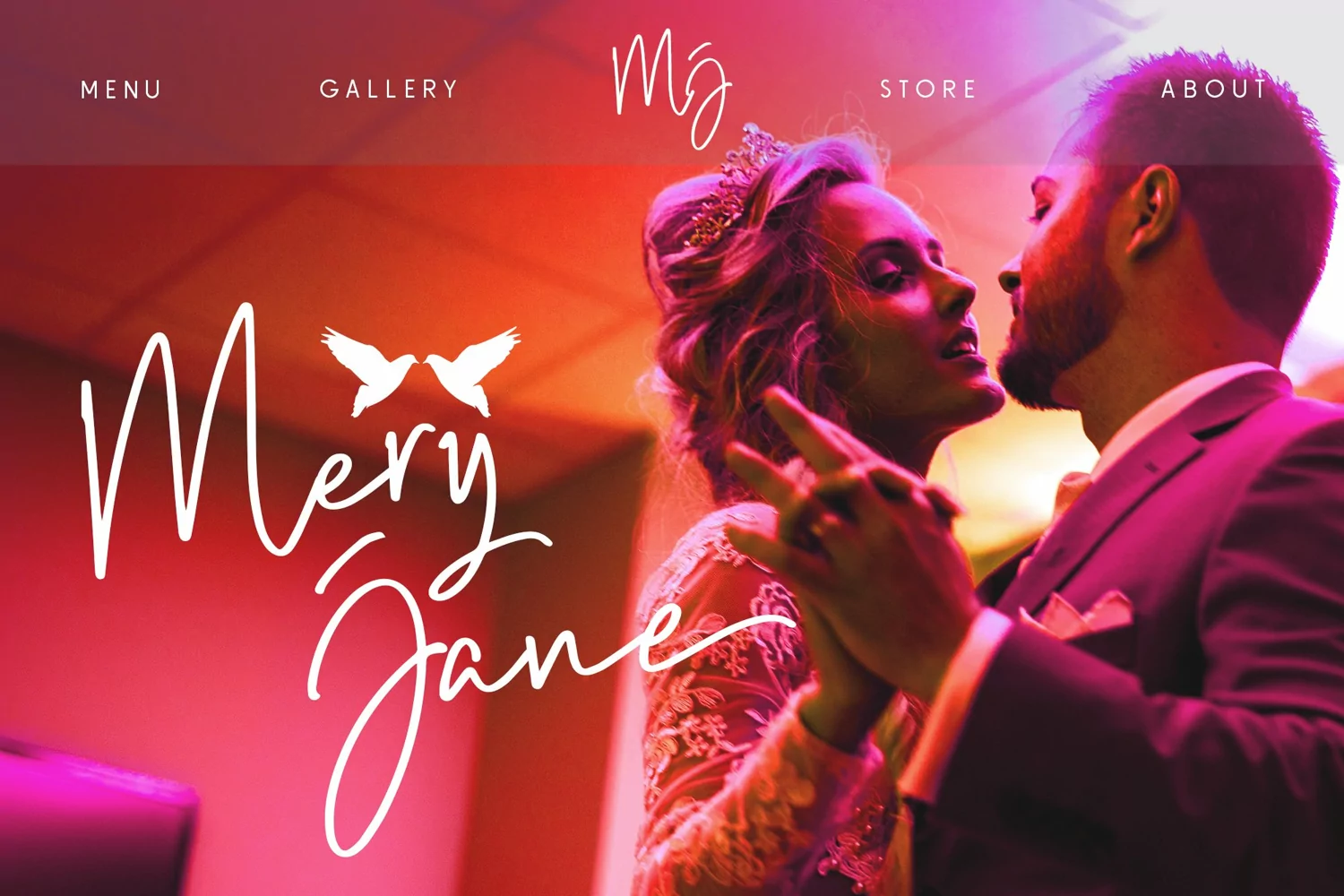
Brush Wayne Signature and Sans
Hi guys, Runsell Studio present a new script font collection. Brush Wayne . . . Yes, Brush Wayne ! This is handwriting font so natural, feminine, and elegant. Wayne brush font can be applied in many design you needs like the logotype, branding, packing, ui design, website header, blogger, signatures, wedding invitation, and more.
Brush Wayne is the font duo pair with sans font, you can combinations two fonts set so there is color in the designs that you create. For an extra bonus, we added 50+ illustrations dingbat as supporting components, to complement the existing free space in your artboard.
Brush Wayne comes with dingbat numerals, uppercase, lowercase, punctuation and numbers. Includes a range of multilingual support. Please message me if you're unsure of any language support.
- Stylistic Alternate
- Ligature